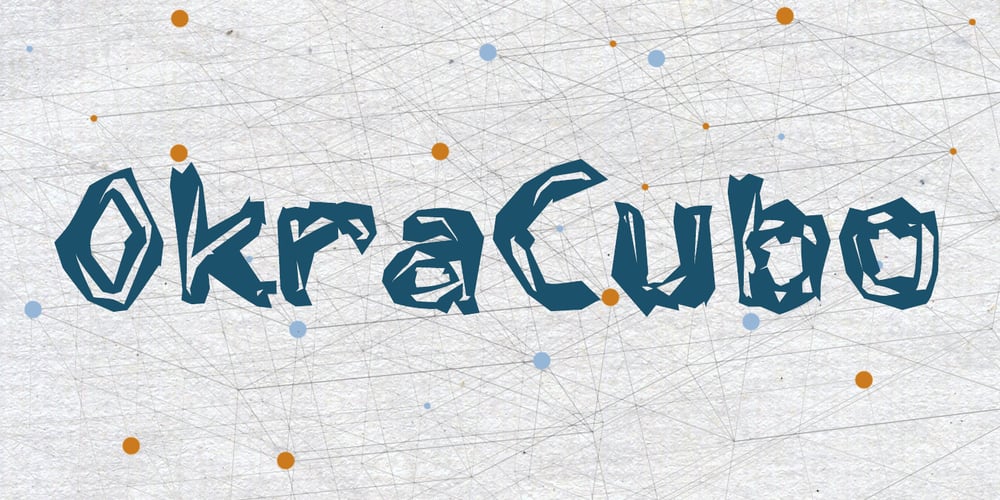
Okra Cubo
Okra Cubo font
Okra Cubo Font Family was designed by Todd Dever and published by Cool Fonts. Okra Cubo contains 1 styles and family package options. OkraCubo in a distressed font with a cubist bent. This font work nicely for both grunge and modern styles. Used at large point sizes the cubist look really comes out. This font is as strange as Okra is a vegetable????